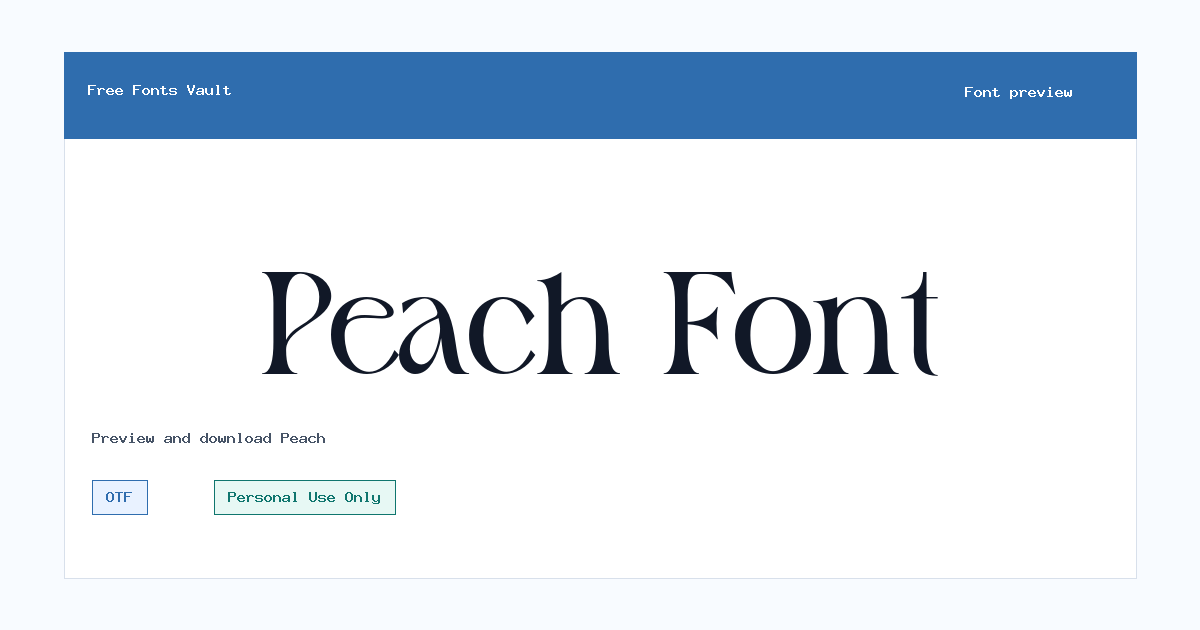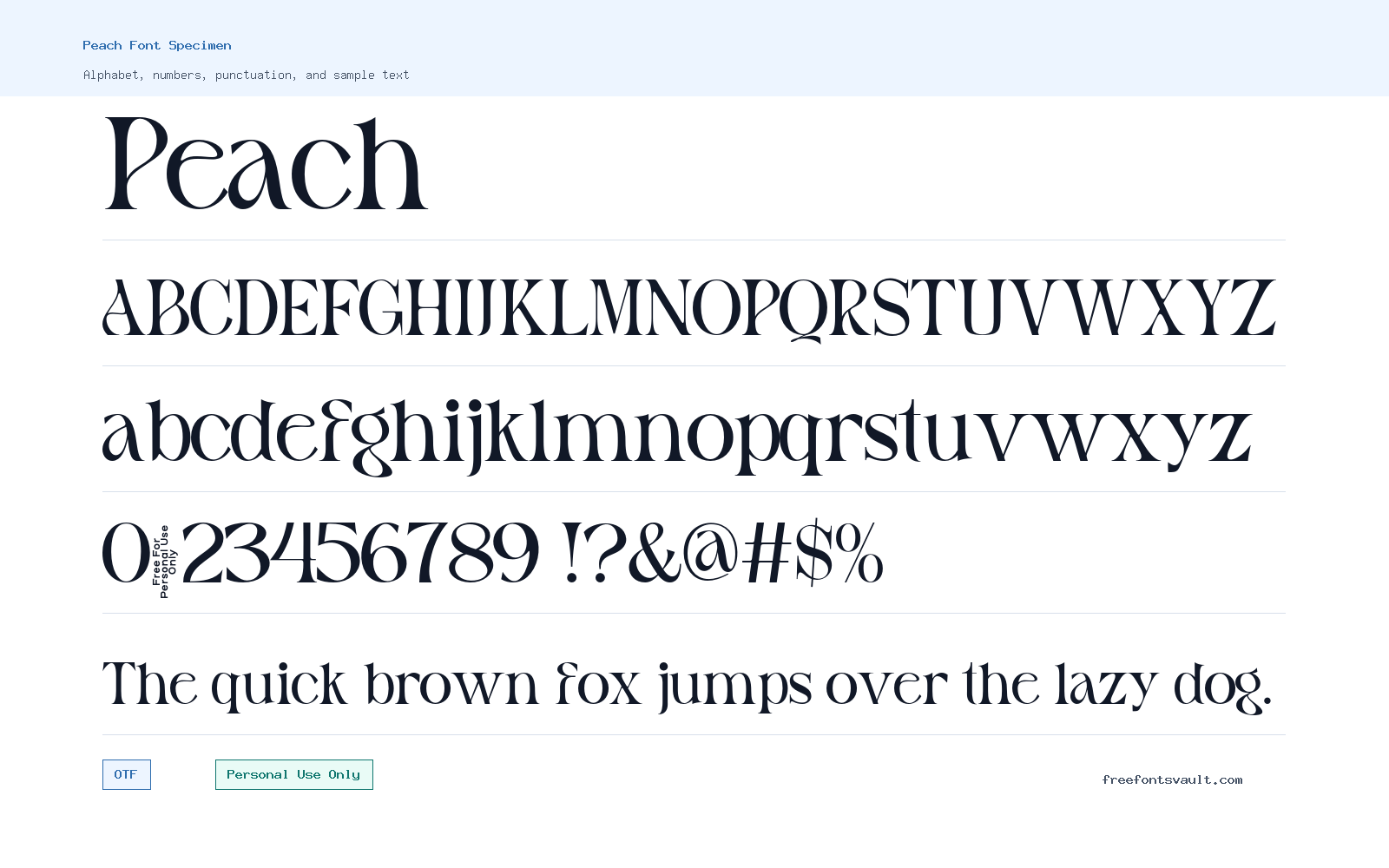
Peach
Peach is a serif font by Zidan Zamzani with a regular OTF file for personal-use projects. It is a good font to test when you want a softer serif look for display text, headings, or decorative short copy.
About Peach Font
Peach works best when treated as a display serif rather than a long-reading text face. Use the preview tool to type your own words before downloading, especially if your project depends on names, titles, quotes, or logo-style lettering. Look closely at spacing, punctuation, uppercase and lowercase balance, and how the font handles short phrases. Since only the regular style is listed, the font is most useful when you do not need a full family with bold, italic, or multiple weights.
For practical use, try Peach in large sizes first. It can suit invitation headings, social graphics, personal branding drafts, quote cards, mood boards, packaging mockups, and blog title images. Be careful with dense paragraphs, small captions, or UI text, because decorative serif fonts often lose clarity when they are reduced too much. If you pair it with another typeface, choose a simple sans serif or a quiet text serif so Peach can carry the main visual style without making the layout feel crowded.
- Personal-use serif style suited to short display text and preview-based testing
- Invitations, quote graphics, mood boards, and personal design mockups
- Headlines, short titles, blog graphics, and decorative name treatments
Is Peach good for body text?
It is better to test it as a display font for headings and short phrases. For long paragraphs, pair it with a simpler reading font.